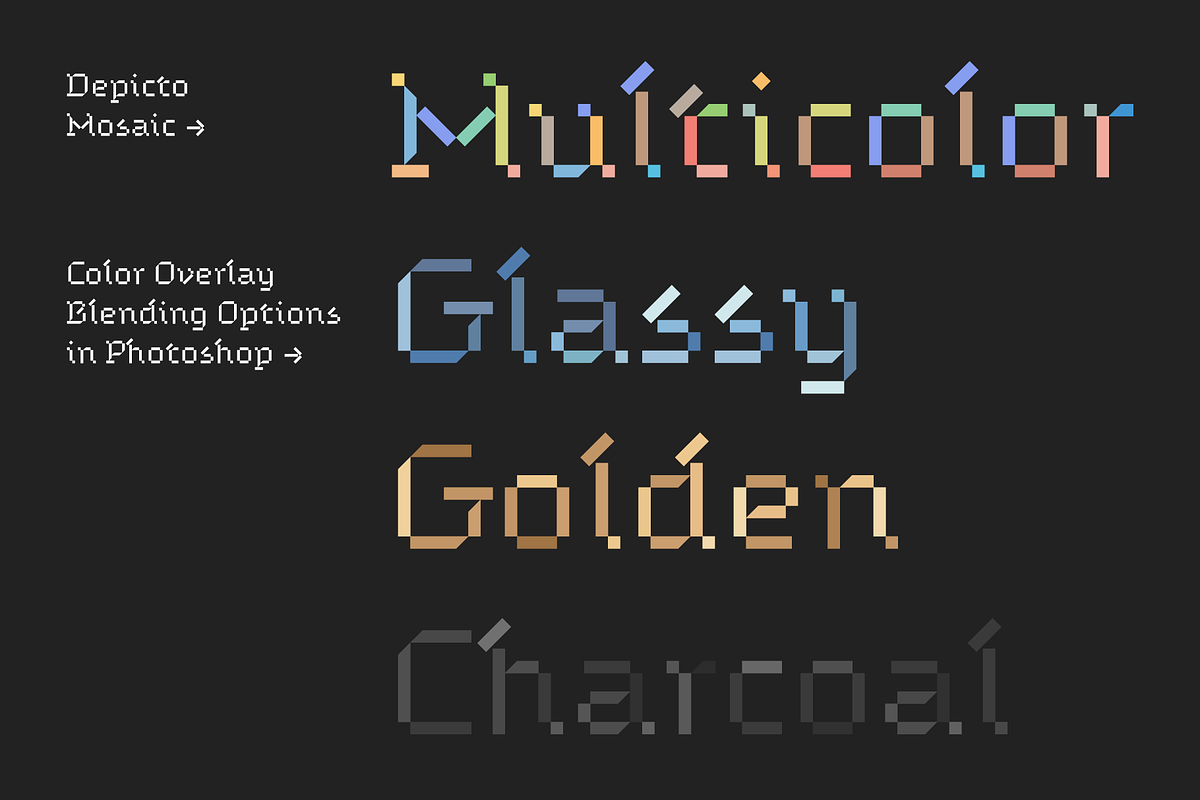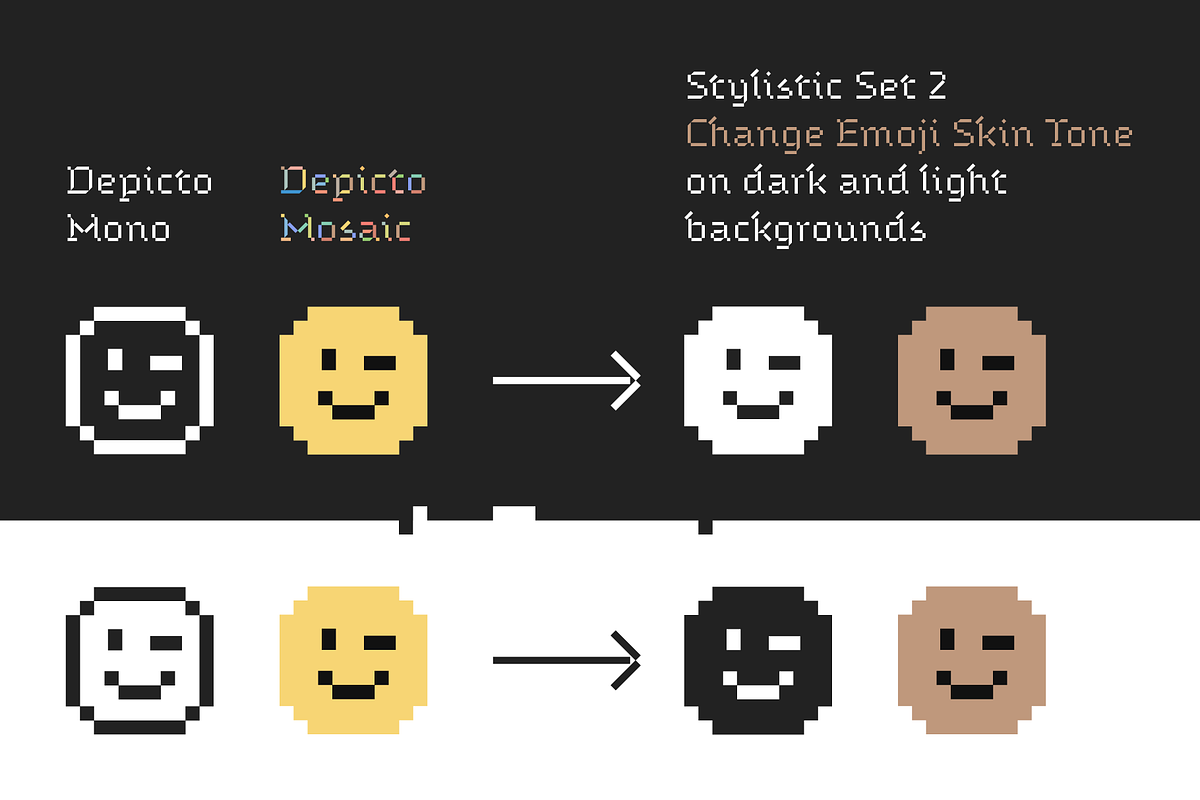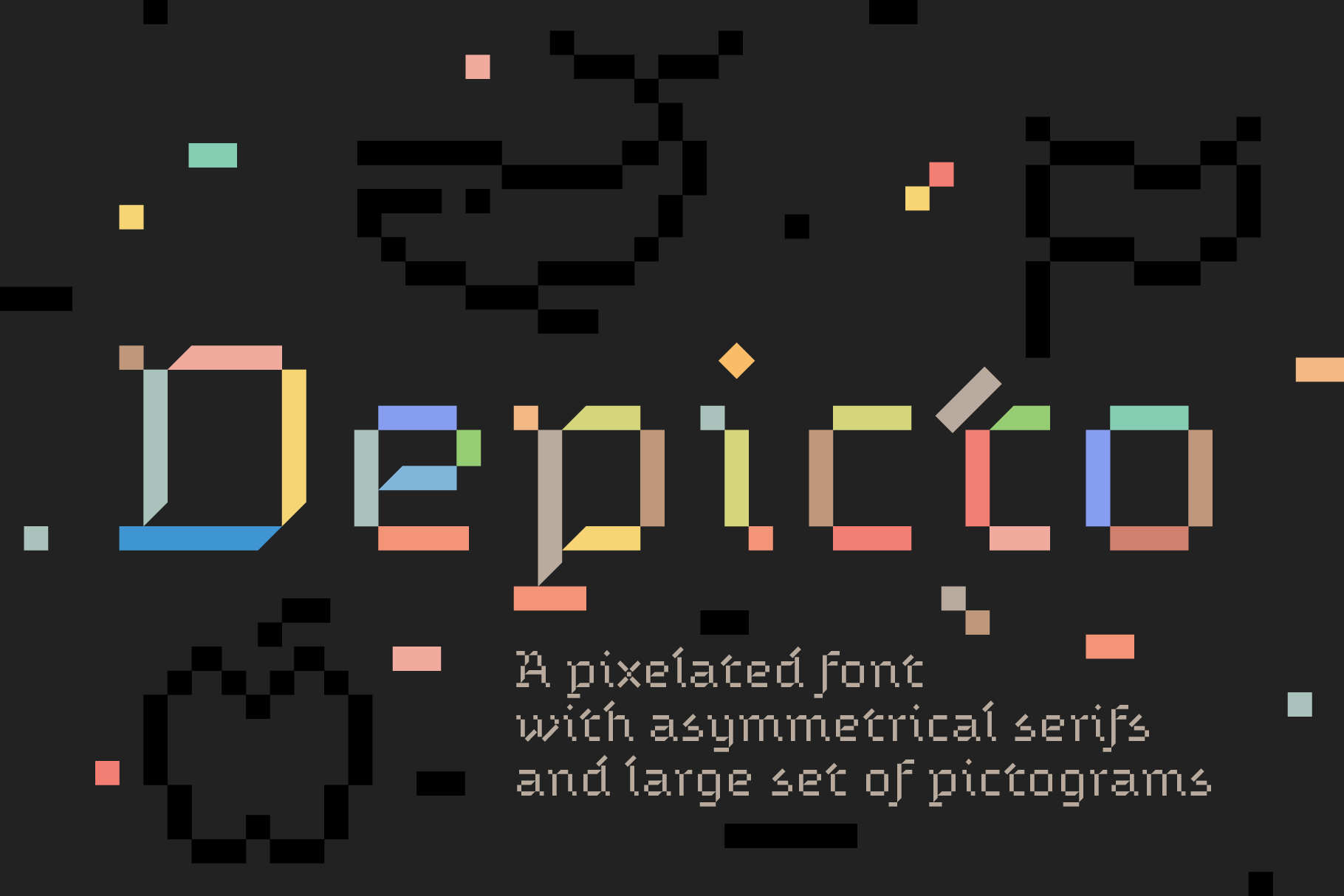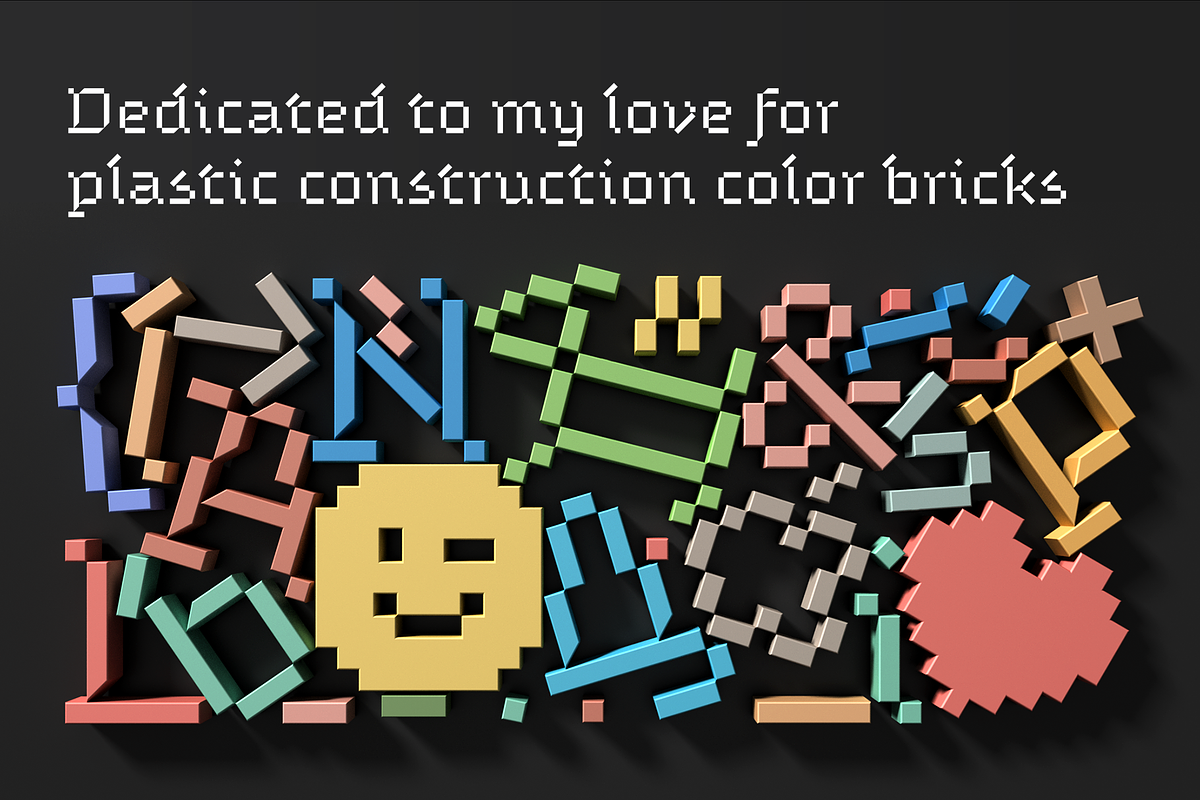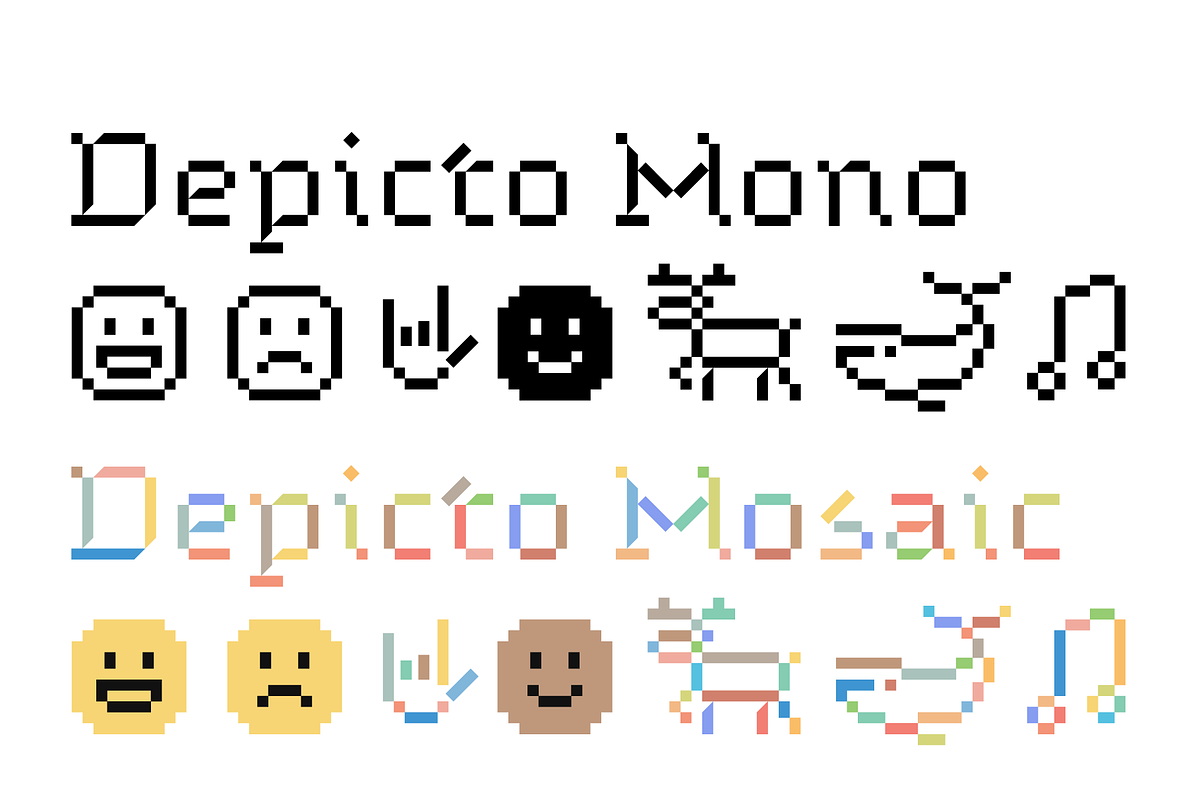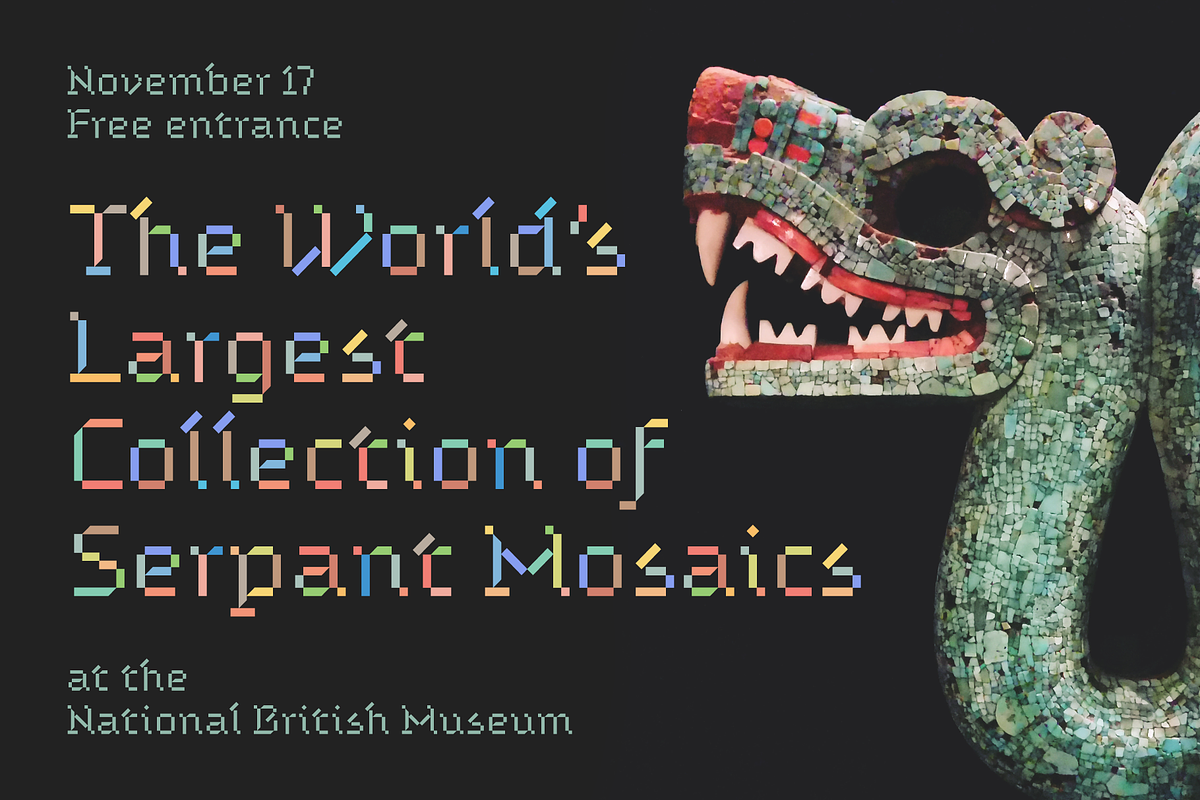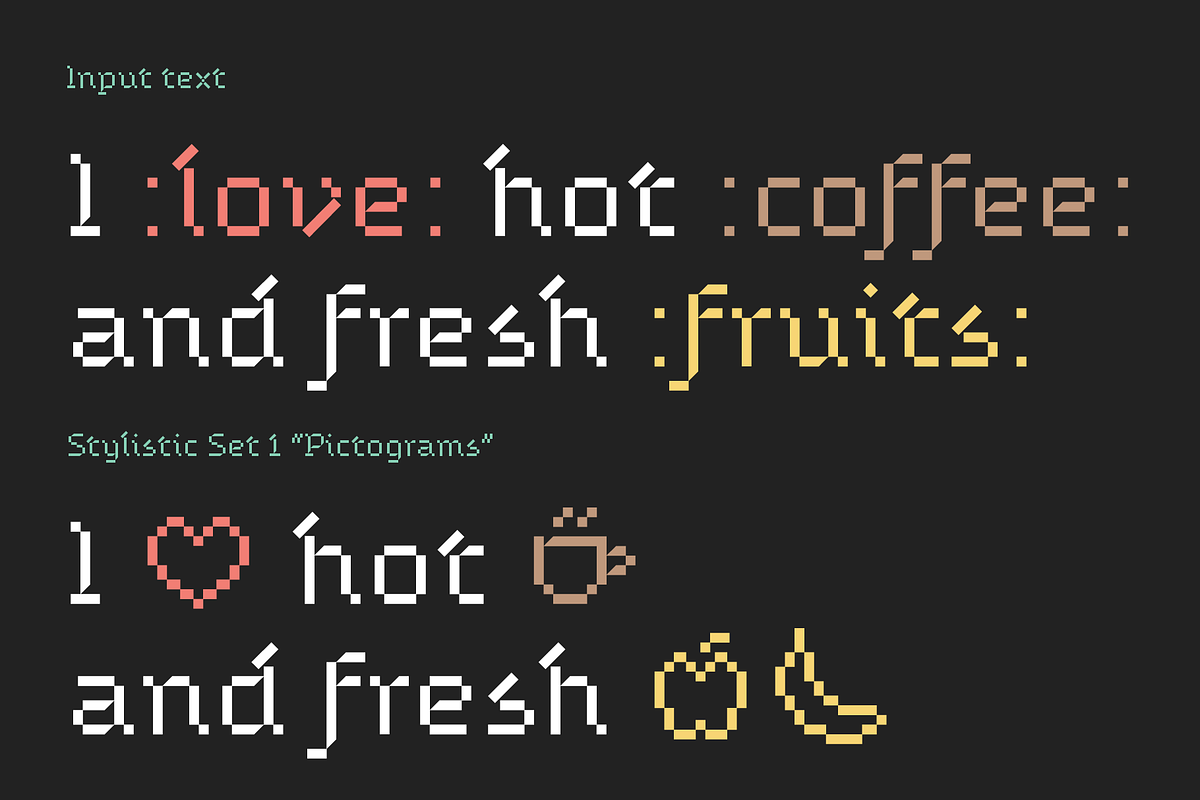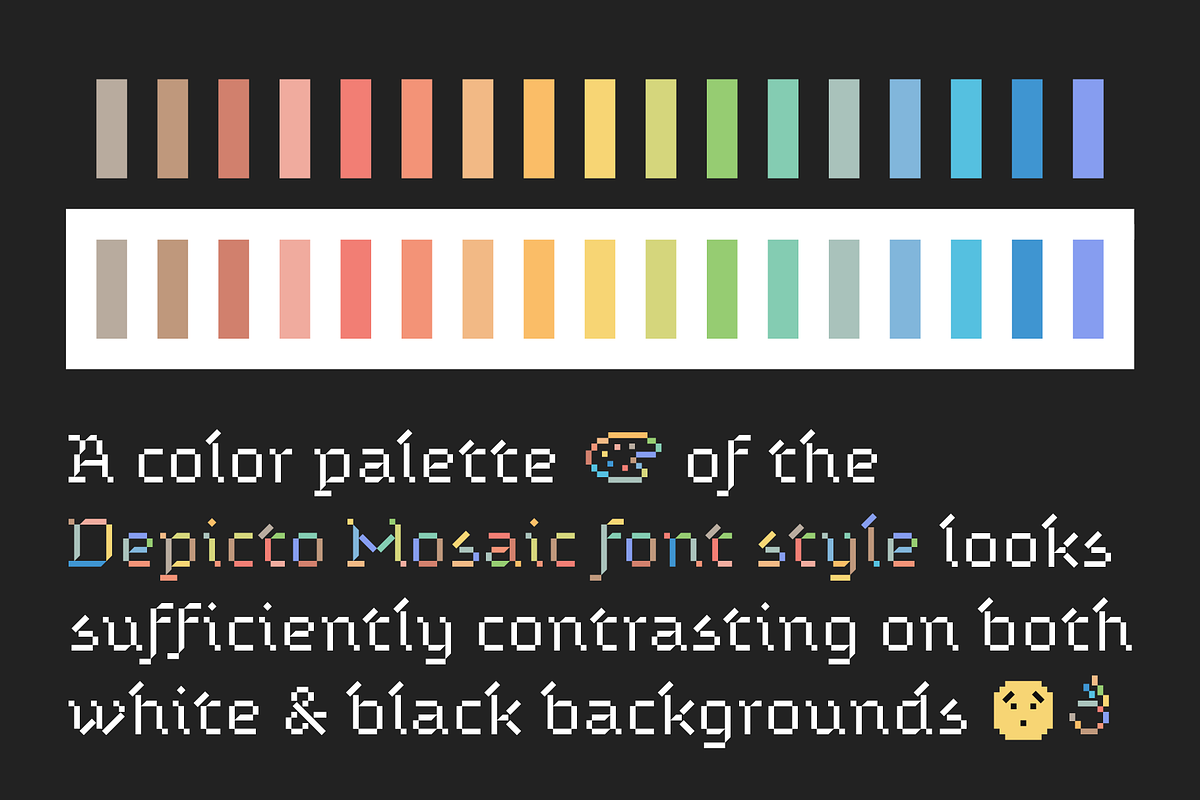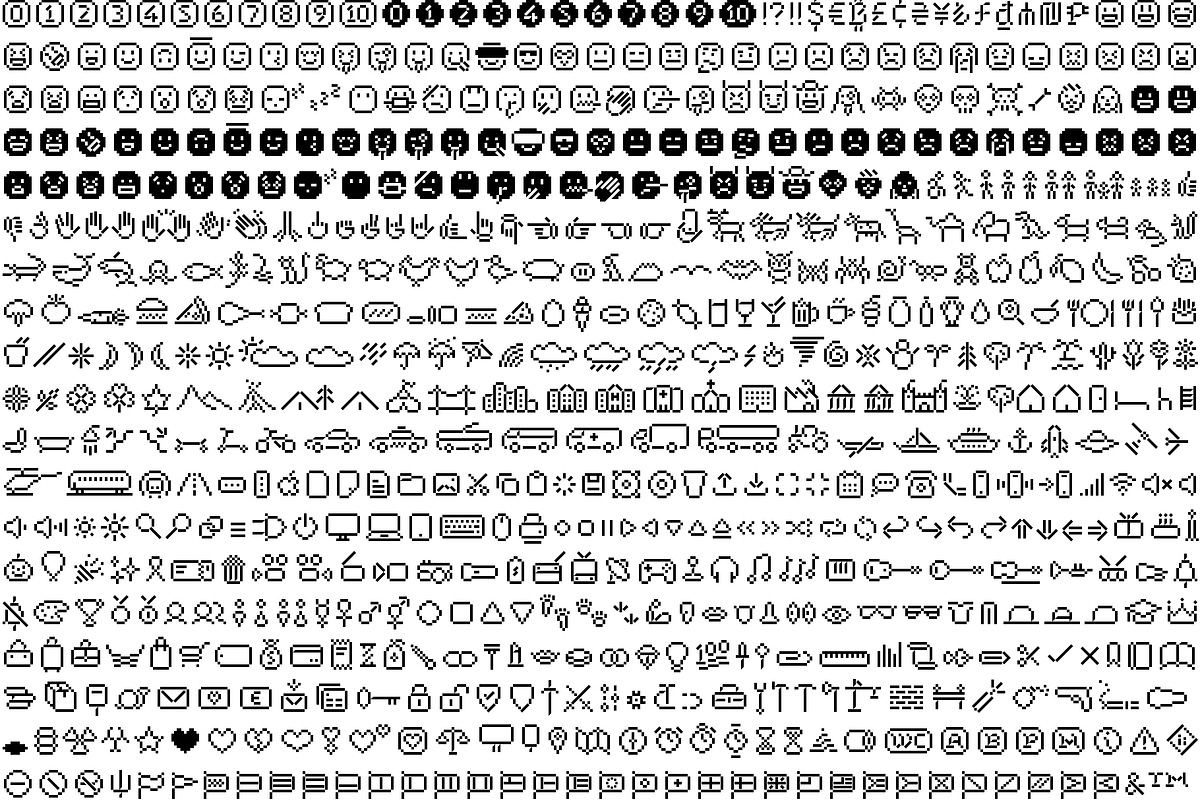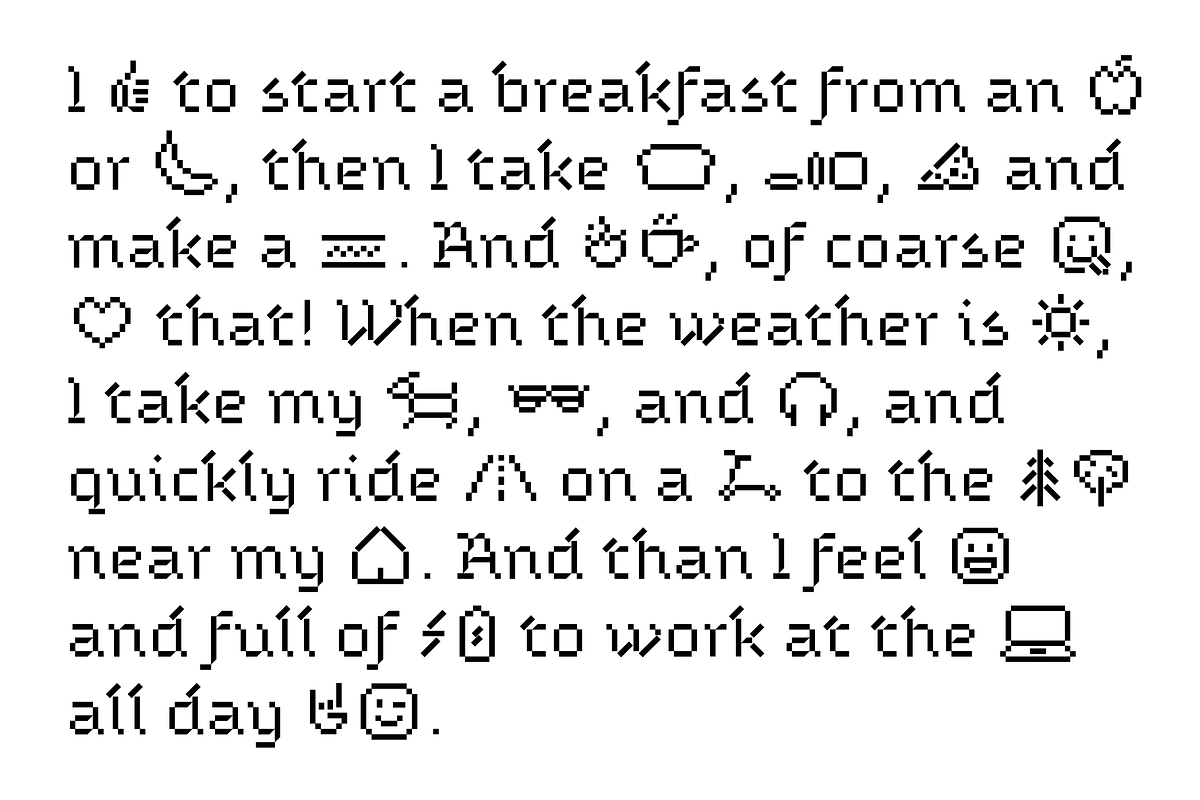
Depicto font
A pixelated typeface with asymmetrical serifs intended to depict emojis in coarse mosaic shapes and represented in two styles that perfectly complement each other – Mono (casual font) and Mosaic (color font). The main font feature is a large set of pictograms, which are activated using the Stylistic Set 1 and typed right in a text with a keywords like :smile: :happy: :sad: :pear: :rose: :horse: :bike: :house: and so on. See the complete list of 600+ pictograms in the Specimen.pdf.
Concept
I loved to play with plastic construction bricks as a child. And of course I loved 8-bit video games. All of this has been reinterpreted in the Depicto typeface. Out of respect for 8-bitness, almost all the dimensions are multiples of 8 – a letters elements have a width of 80 points and a length of 80, 160, 240, 400, and so on, as well the spacing between the characters and the vertical metrics.
Although inspired by pixelation, the font plays with its own geometry. Using simple squared shapes, it balances between pixel-perfect and diagonal mosaic. The letters construction is based on rectangles – horizontal, vertical, and rotated by 45 degrees. It is important to note that the letters consist of separate non-intersecting elements, each of which, in the Depicto Mosaic font style, is painted in different colors.
The font also uses upper left and lower right horizontal serif strokes. Such asymmetrical serifs are typical for Ukrainian typography since the works of Heorhiy Narbut. Their digitization and pixelization calls for a new look at artistic constants.
Color font
Depicto Mosaic is dedicated to my love for plastic construction color bricks. Every letter element is painted in random but non-repeating color from the palette of 17 predefined colors. This palette is selected in such a way that it looks sufficiently contrasting on both white and black backgrounds. But of course, you can change the palette in the Photoshop by using Blending Options with Color Overlay (see an examples on the promo images), or in the Illustrator by converting the text to outlines and then Recolor Arkwork.
Pictograms
Stylistic Set 1 “Pictograms”: The main font feature is a large set of 600+ pictograms and emoticons. See the complete list of pictograms and their keywords in the Specimen.pdf starting from the page 4. It doesn't cover all possible Unicode pictograms, but the set may be expanded in future updates. There are a three ways how to use them.
- By activating the Stylistic Set 1 and typing the pictogram keywords like :smile: :happy: :rofl: :sad: :facepalm: :pear: :rose: :horse: :bike: :house: :laptop: and so on. For example: I'm so :happy: to see these beautiful :tulips: and :roses: in your :garden:, good work :clap:. GitHub, Slack, Basecamp, and others use such a markdown approach at the application level, but Depicto does this word processing at the font level, so it's available right in a text/graphic editors and a web browsers.
Stylistic Set 2 “Change Emoji Skin Tone”: This way you can change the skin tone of emoticons (smileys). In the Depicto Mosaic style, a classic yellow smileys become brown ones. And in Depicto Mono style the result depends on the background color – for a white background, white faces are replaced by black ones, and accordingly, for a black background, black faces are replaced by white ones. So just remember – when you change the background color from light to dark or vice versa (using Depicto Mono font), the faces appear inverted, and you can use this Stylistic Set to reinvert them back if needed.